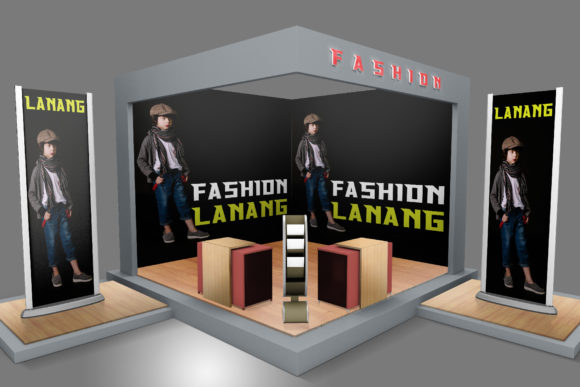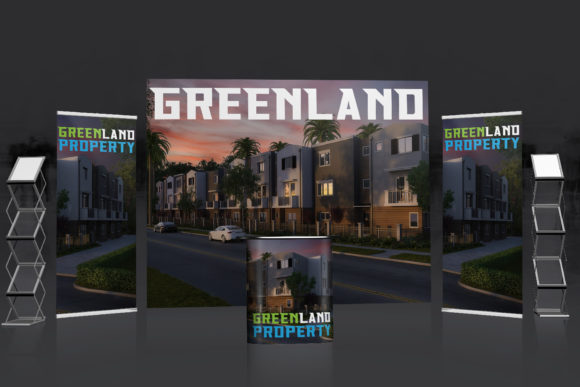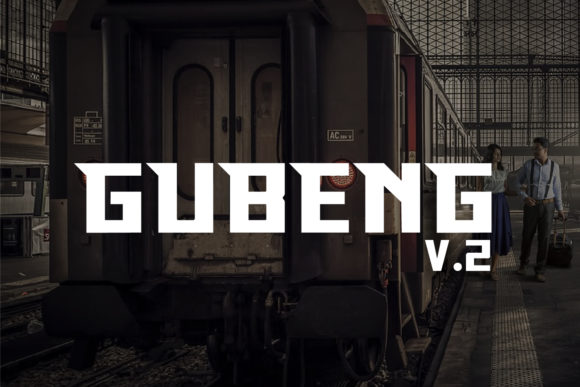
Gubeng V.2 Font: Elevate Your Design with a Modern Twist
In the world of typography, fonts play a crucial role in conveying the tone and personality of a design project. For designers and crafters, finding the perfect font can be a daunting task. However, if you’re looking for a modern and smart feel, look no further than Gubeng V.2 Font. As the next generation of the classic font of the same name, Gubeng V.2 is designed to take your design projects to the next level.
The Evolution of Gubeng Font
Gubeng Font has been a staple in the design community for years, known for its unique and recognizable style. However, with the ever-changing landscape of design, it’s essential to stay ahead of the curve. That’s where Gubeng V.2 comes in – a modern revamp of the classic font, designed to meet the needs of contemporary designers and crafters.
What Makes Gubeng V.2 Stand Out?
So, what sets Gubeng V.2 apart from its predecessor and other fonts on the market? Here are a few key features that make it an excellent addition to any design project:
- Modern and Smart Feel: Gubeng V.2 boasts a fresh and modern aesthetic, perfect for designers looking to add a touch of sophistication to their work.
- Improved Legibility: The font’s clarity and legibility have been significantly enhanced, making it ideal for use in a variety of applications, from digital media to print materials.
- Versatility: Gubeng V.2 is designed to be versatile, suitable for use in headings, body text, and even titles.
- Unique Character Set: The font features a unique character set, ensuring that your design stands out from the crowd.
Applications of Gubeng V.2 Font
Gubeng V.2 Font is perfect for a wide range of design projects, including:
- Branding and Logo Design: The font’s modern and smart feel makes it an excellent choice for creating logos and brand identities.
- Digital Media: Gubeng V.2 is optimized for digital use, making it perfect for websites, social media graphics, and more.
- Print Materials: The font’s improved legibility and unique character set make it suitable for use in print materials, such as brochures, flyers, and posters.
- Crafting and DIY Projects: Gubeng V.2 is also perfect for crafters and DIY enthusiasts looking to add a personal touch to their projects.
Tips for Using Gubeng V.2 Font
To get the most out of Gubeng V.2 Font, here are a few tips to keep in mind:
- Experiment with Font Sizes: Gubeng V.2 looks great in a variety of font sizes, so don’t be afraid to experiment to find the perfect fit for your design.
- Pair with Other Fonts: The font pairs well with other sans-serif fonts, making it easy to create visually appealing combinations.
- Use in Combination with Images: Gubeng V.2 works well in combination with images, adding a touch of sophistication to your design.
In conclusion, Gubeng V.2 Font is an excellent choice for designers and crafters looking to add a modern and smart feel to their design projects. With its improved legibility, unique character set, and versatility, this font is sure to become a staple in your design toolkit. So why wait? Download Gubeng V.2 Font today and take your design projects to the next level!